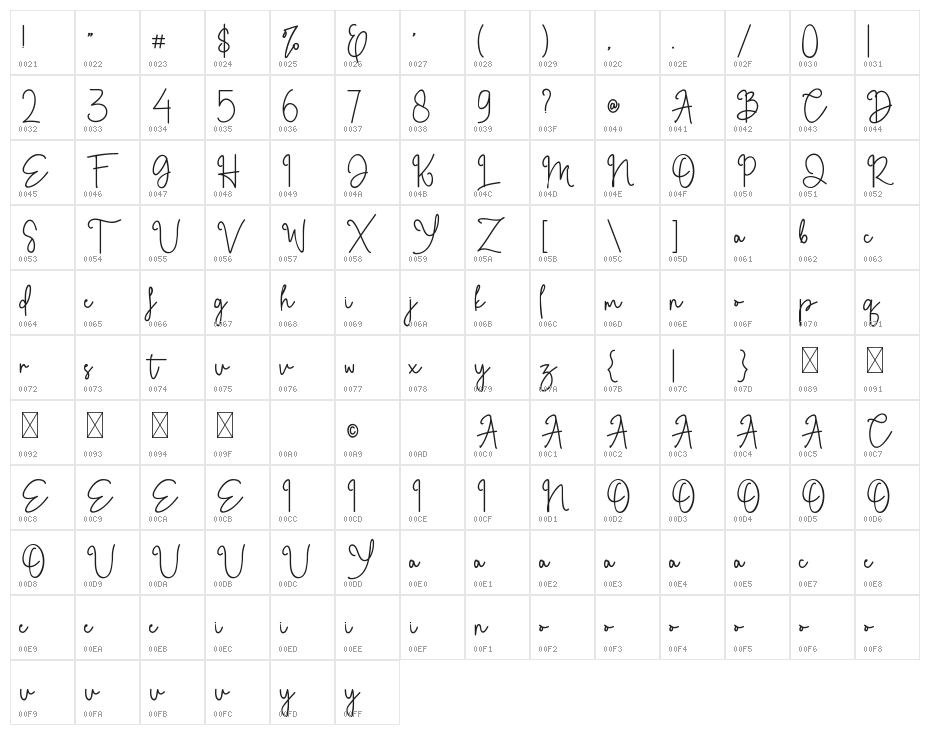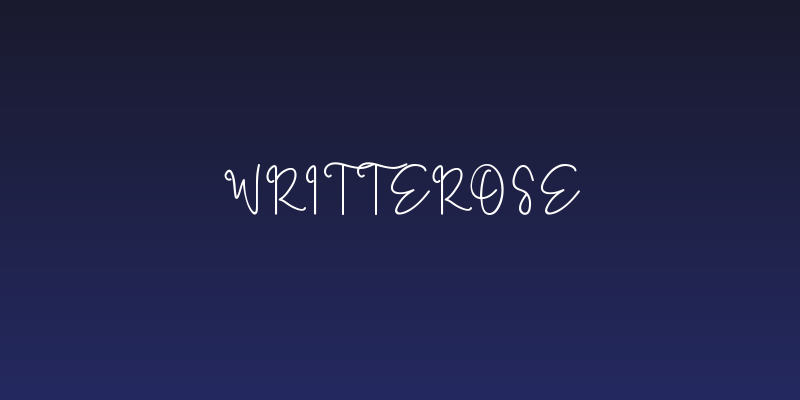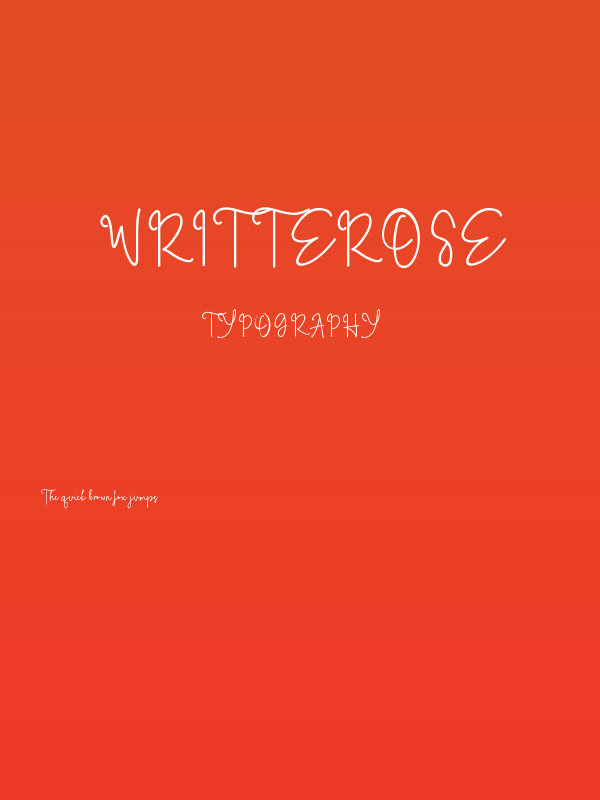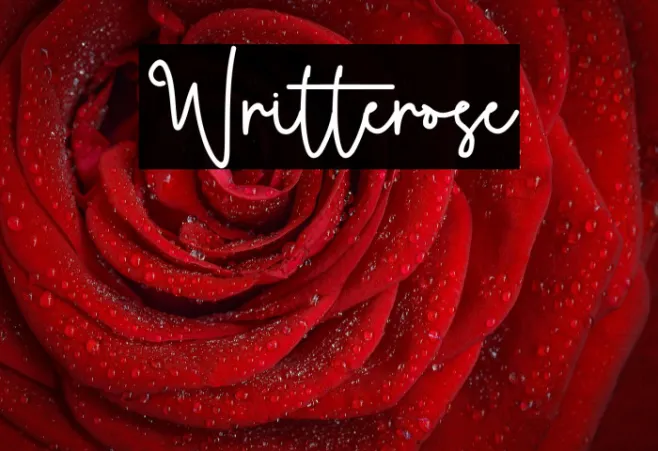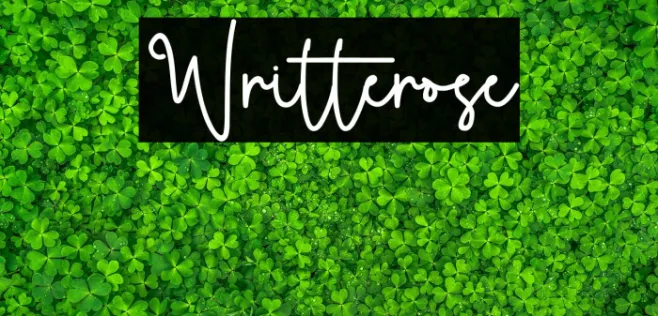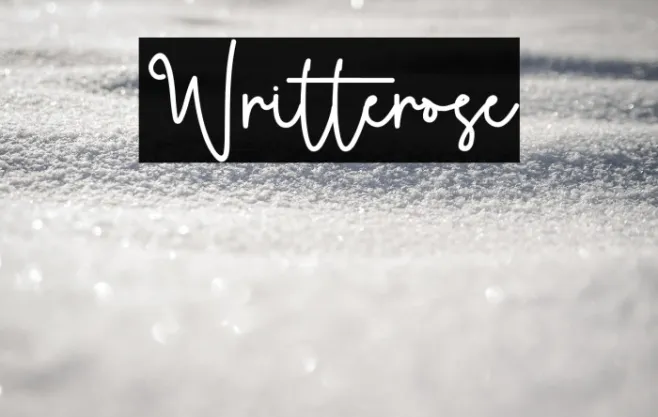
Writterose Font
Writterose Description
This font features a playful and whimsical script style with a handwritten appearance. The uppercase letters are characterized by their flowing, interconnected strokes, giving a sense of movement and fluidity. The lowercase letters maintain a consistent style, with a slightly more compact form, enhancing readability while retaining the font's unique charm. The numerals are rounded and maintain the playful aesthetic, making them suitable for informal contexts. Special characters are integrated seamlessly, ensuring versatility in various design applications. Overall, this font exudes a casual and friendly vibe, perfect for projects that require a personal touch.
| Use Case | Headlines, Invitations, Personal Branding |
| Proposed Projects | Ideal for greeting cards, invitations, personal branding, and creative projects that require a whimsical touch. |